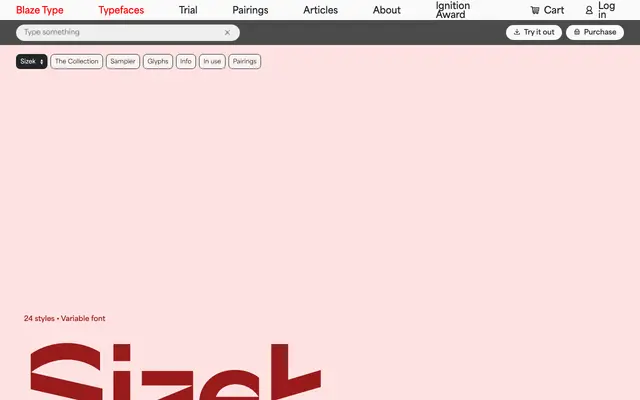
Sizek
Blaze Type · Sandro Bonomo · 2024
Sizek specimen from Blaze Type
A deconstructed display typeface from Sandro Bonomo that fragments classical calligraphic letterforms through a deliberately glitched, broken aesthetic.
Inspired by digital lag, corrupted files and screen glitches, the design intentionally disrupts letter structures with breaks and divisions to create unconventional counters and shapes. Eight weights run from Thin to ExtraBold, each accompanied by a standard italic and a more extreme Super Italic cut, across 24 styles in total. The variable file supports the full weight range, and coverage extends to Latin European languages.
Sizek is explicitly described as an experimental display typeface, with letterforms deconstructed through intentional breaks and disruptions drawn from digital glitch aesthetics rather than any conventional type classification.